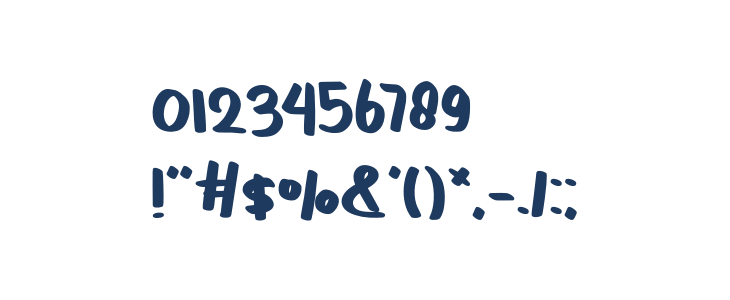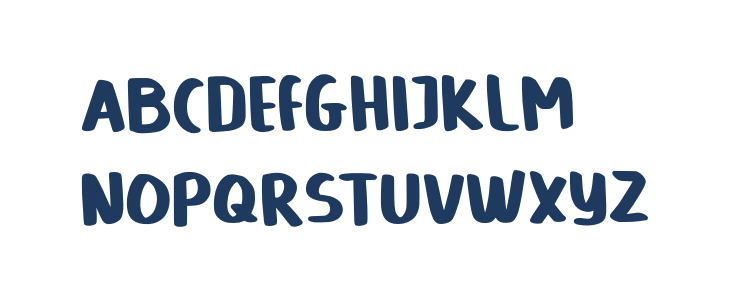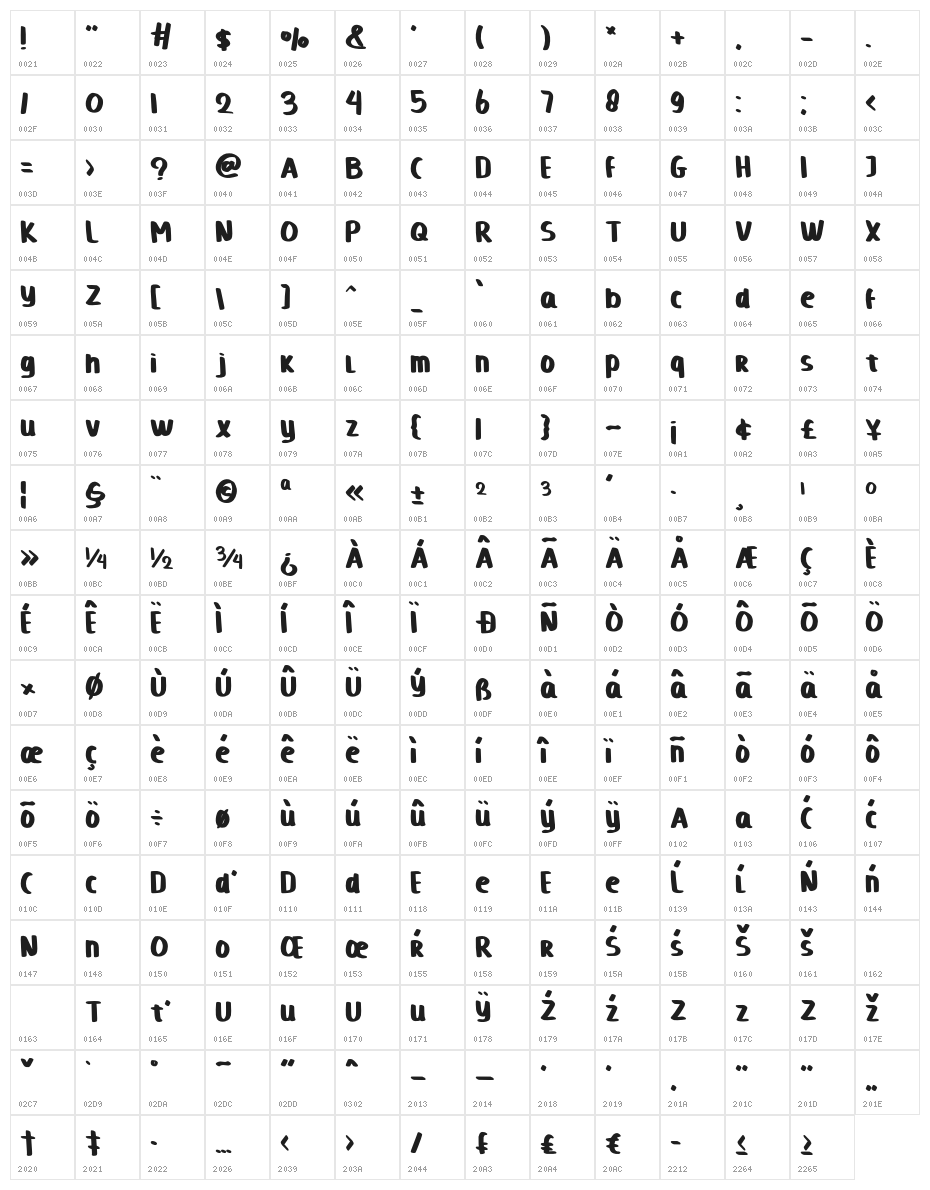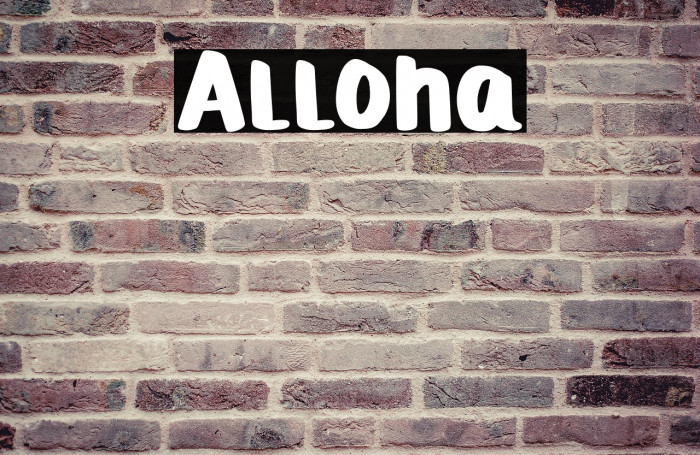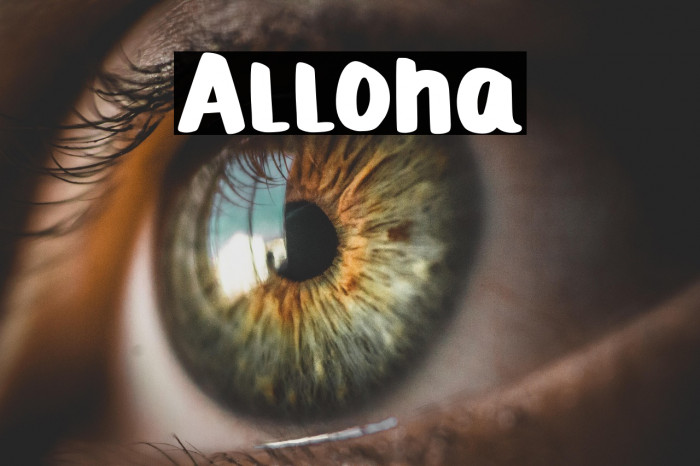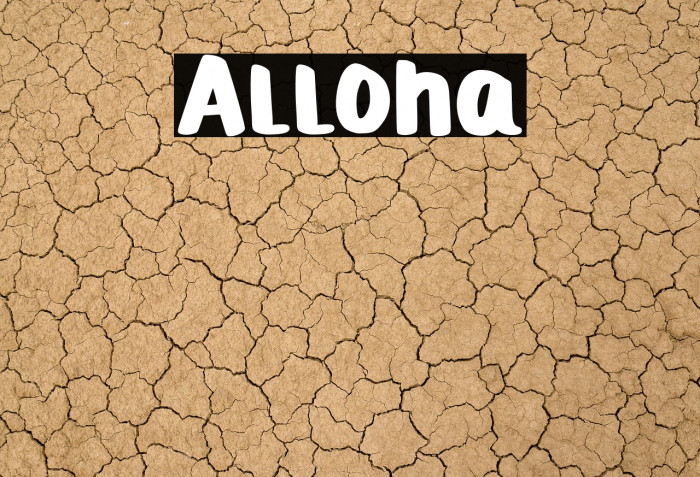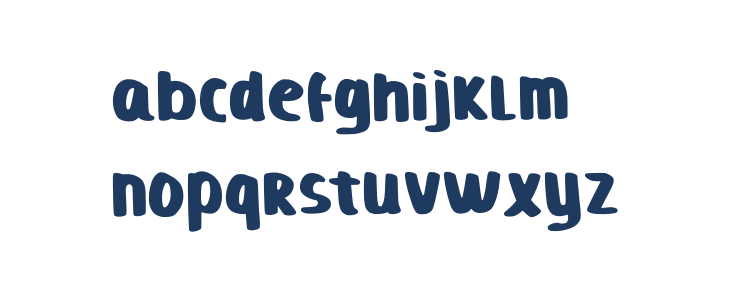
Alloha Font
Alloha Description
A playful, rounded sans-serif typeface with bold, thick strokes and a hand-drawn, informal appearance. The characters are slightly irregular, giving a friendly and approachable feel. The spacing is normal, and the overall style is casual and decorative.
| Overall Style | Playful, Decorative, Informal |
| Use Case | Headlines, Posters, Logos, Children's materials |
| Proposed Projects | Children's books, posters, greeting cards, branding for playful or casual products, social media graphics. |